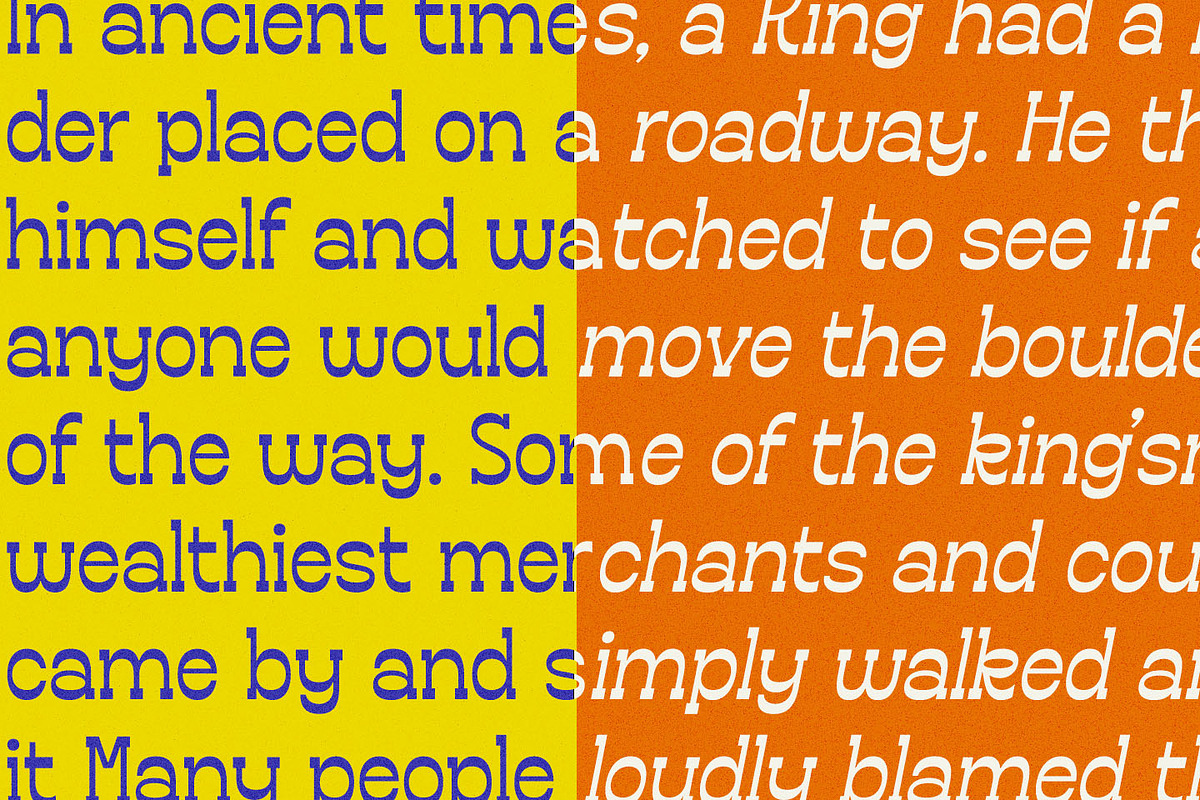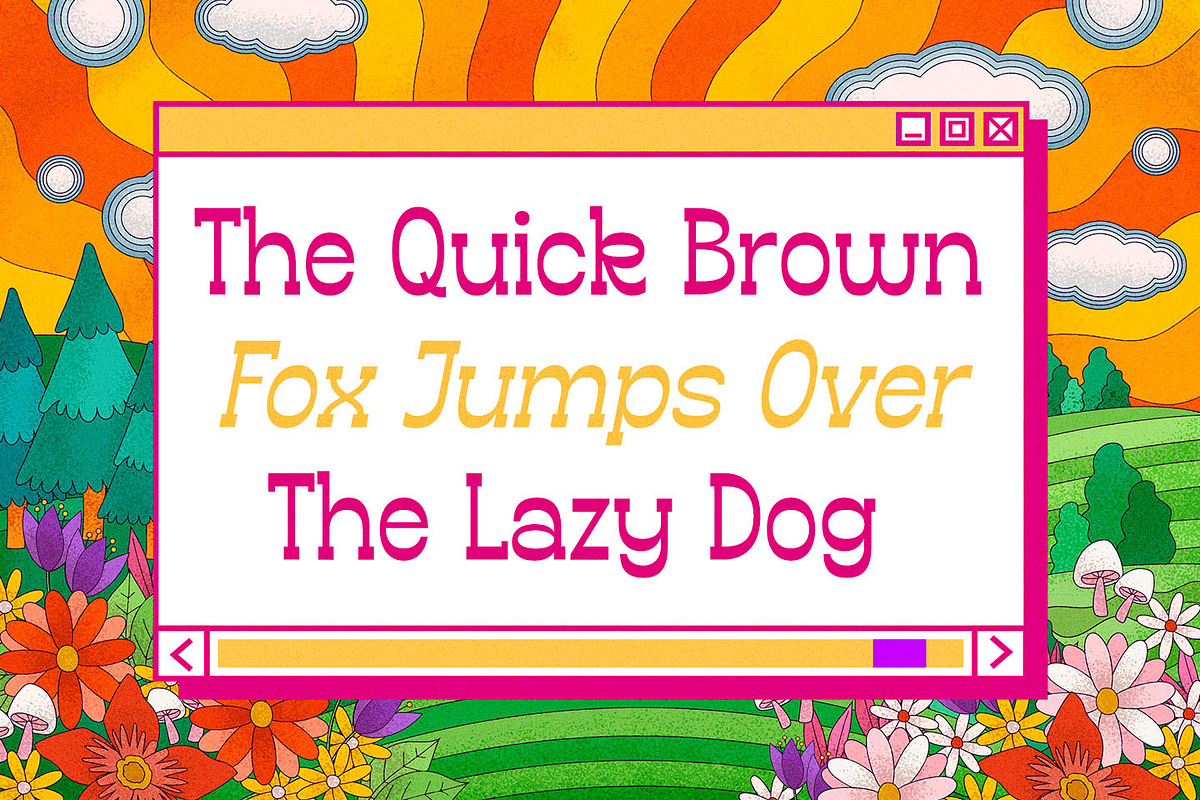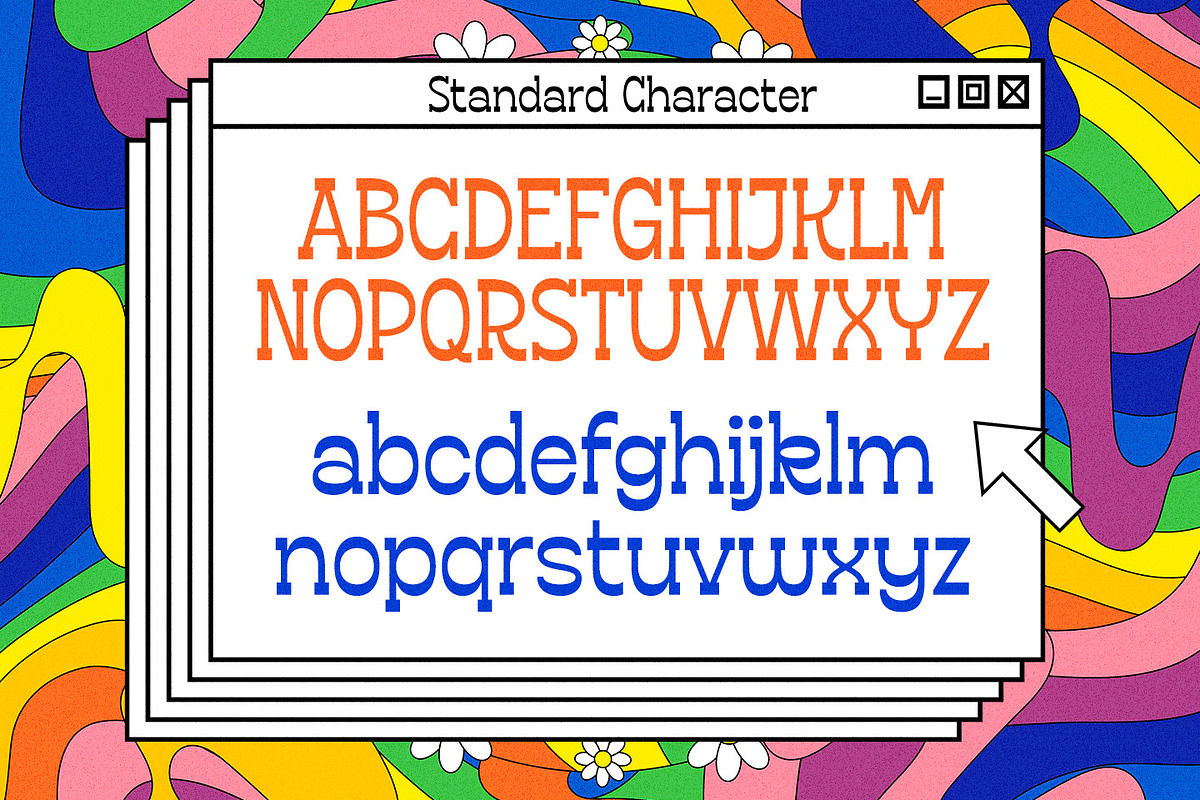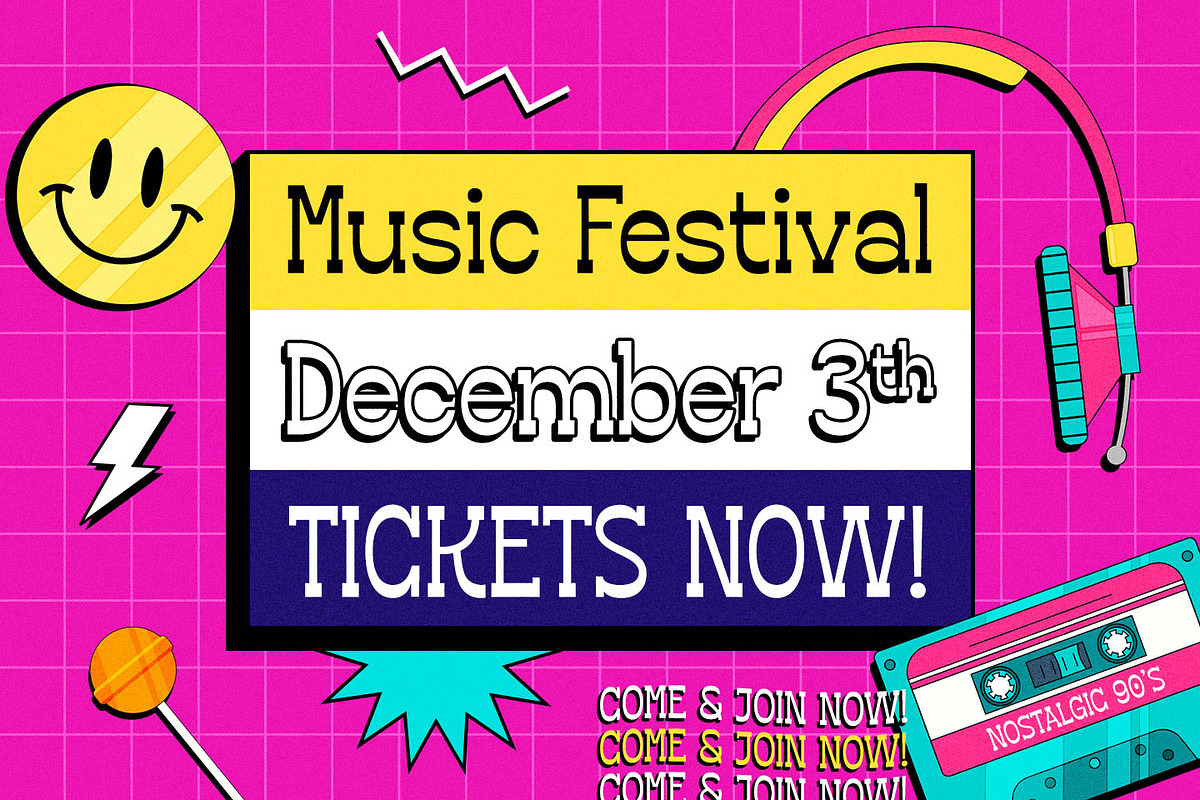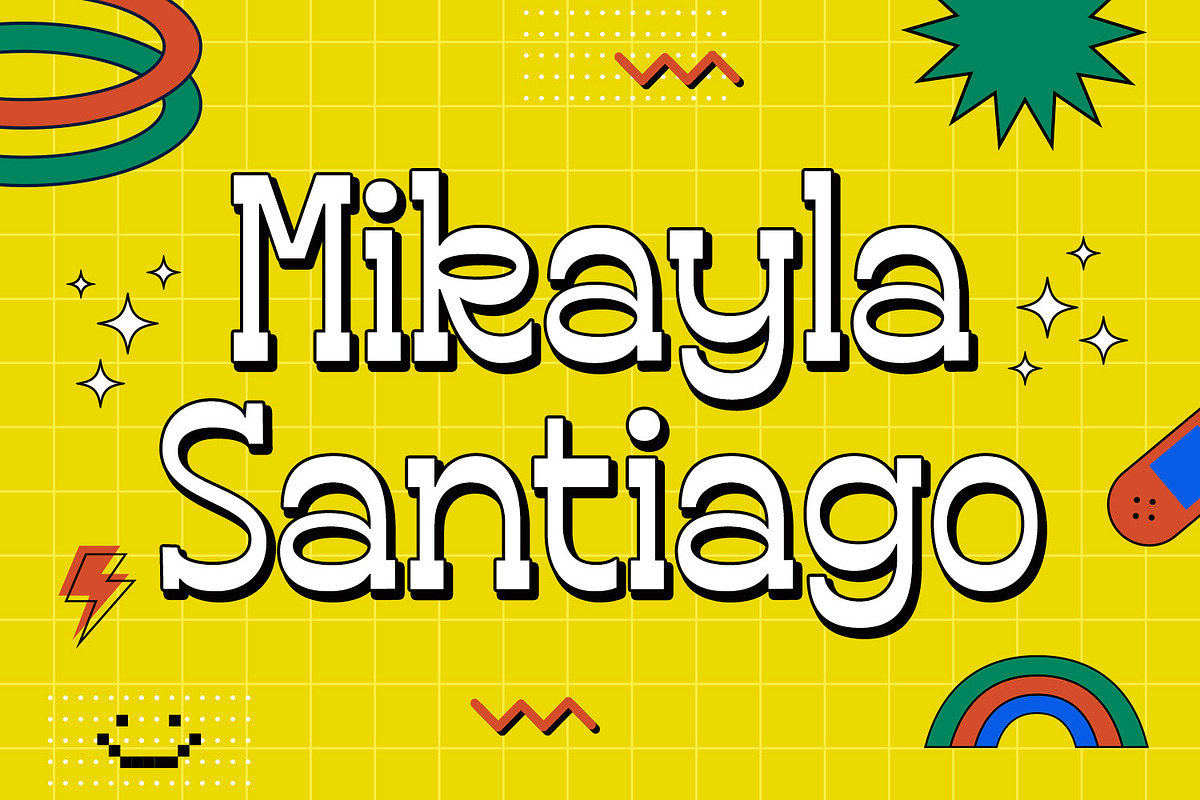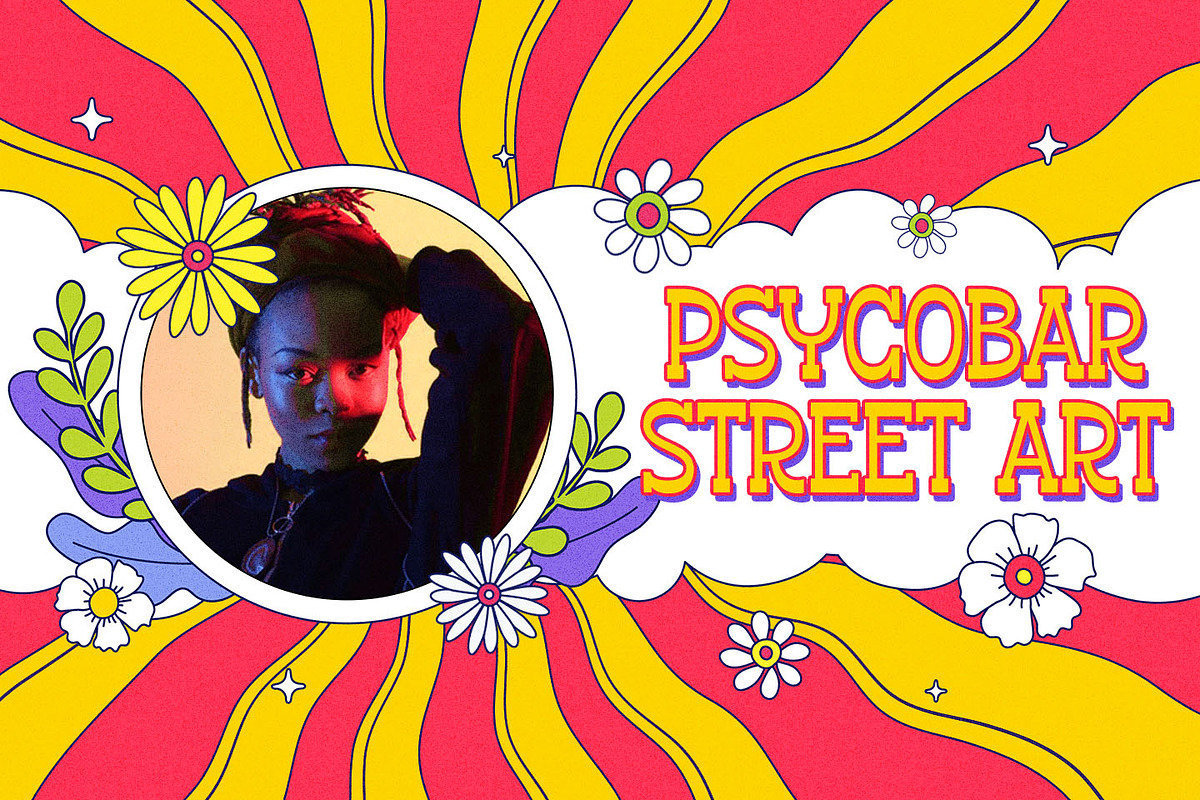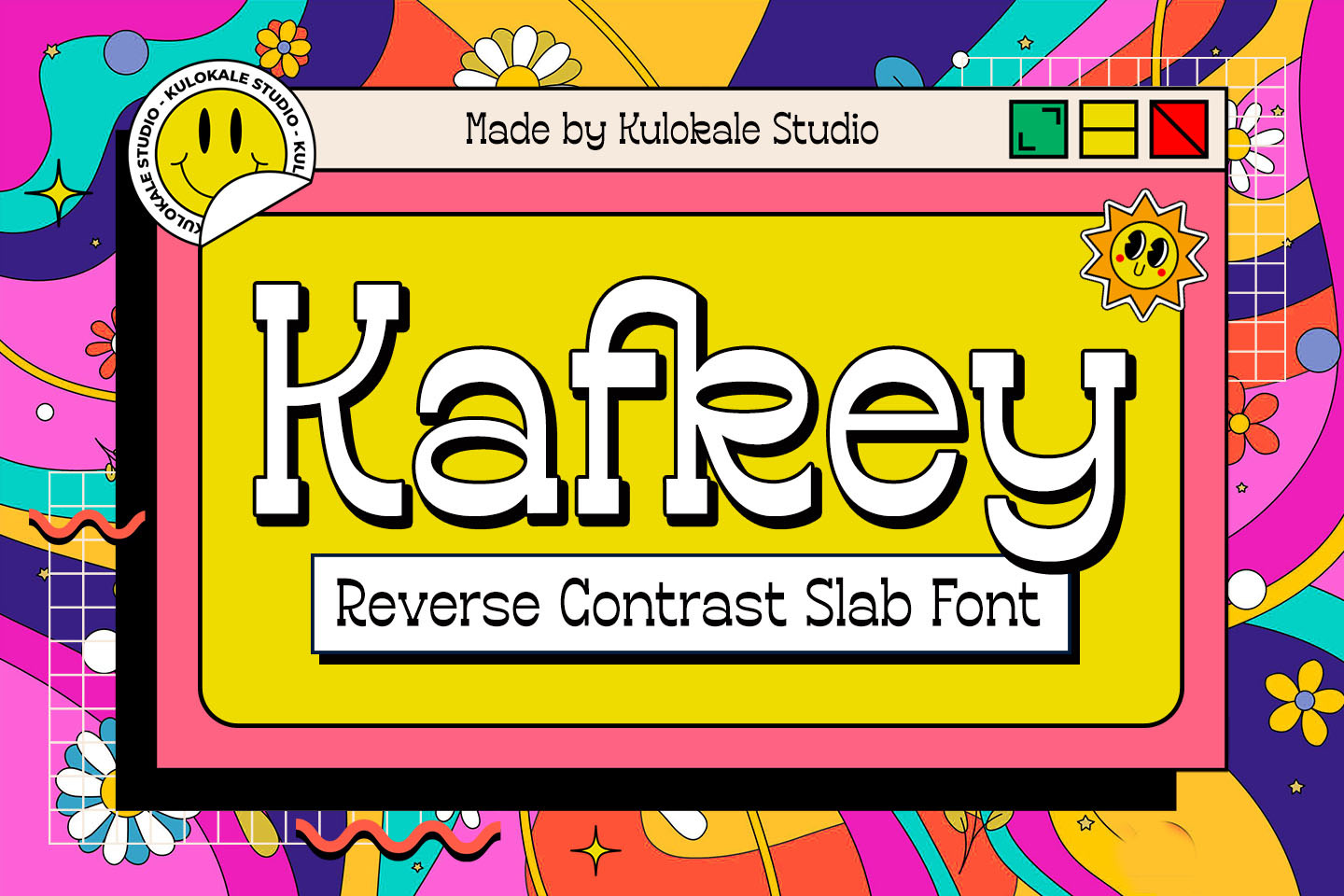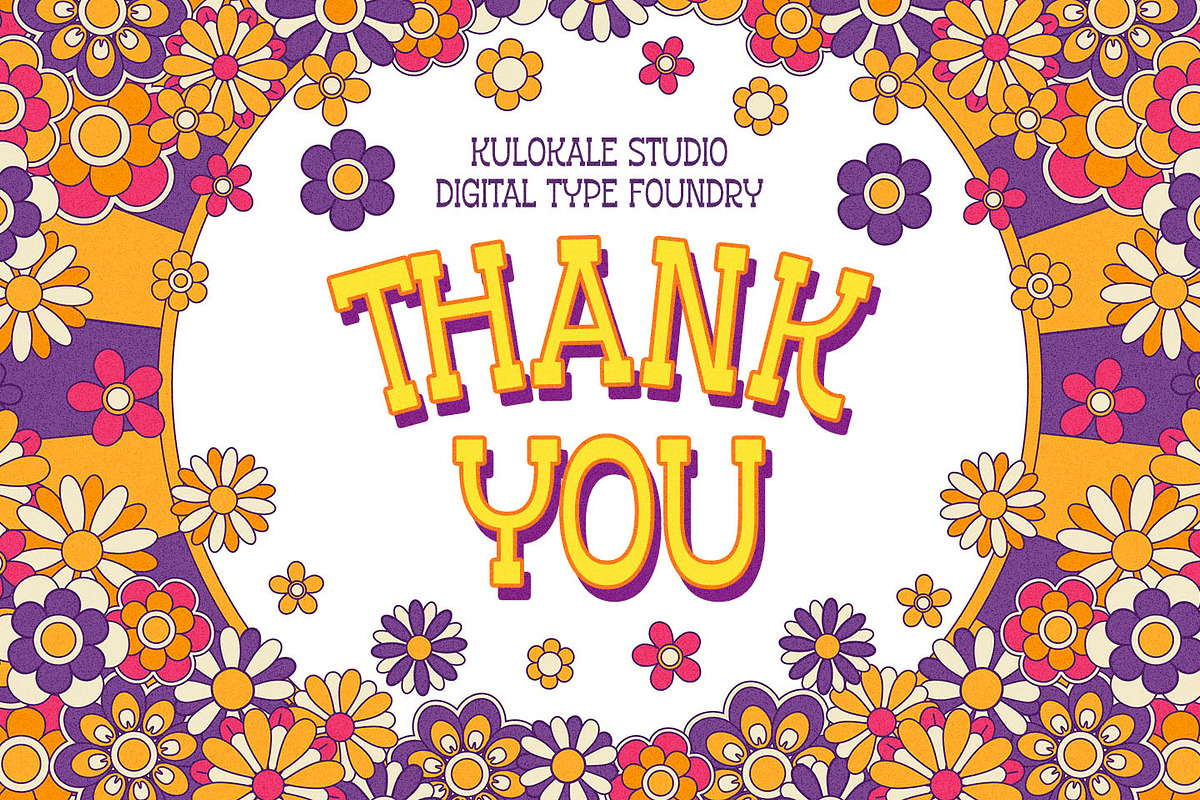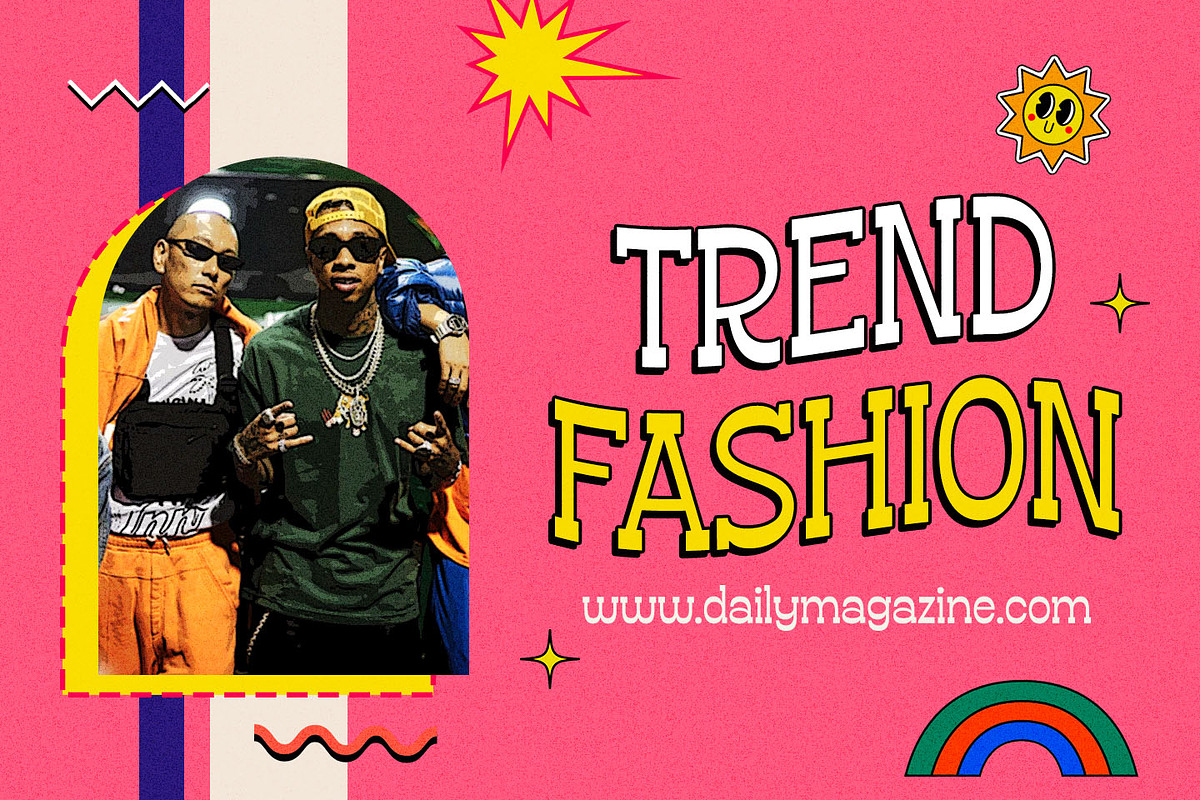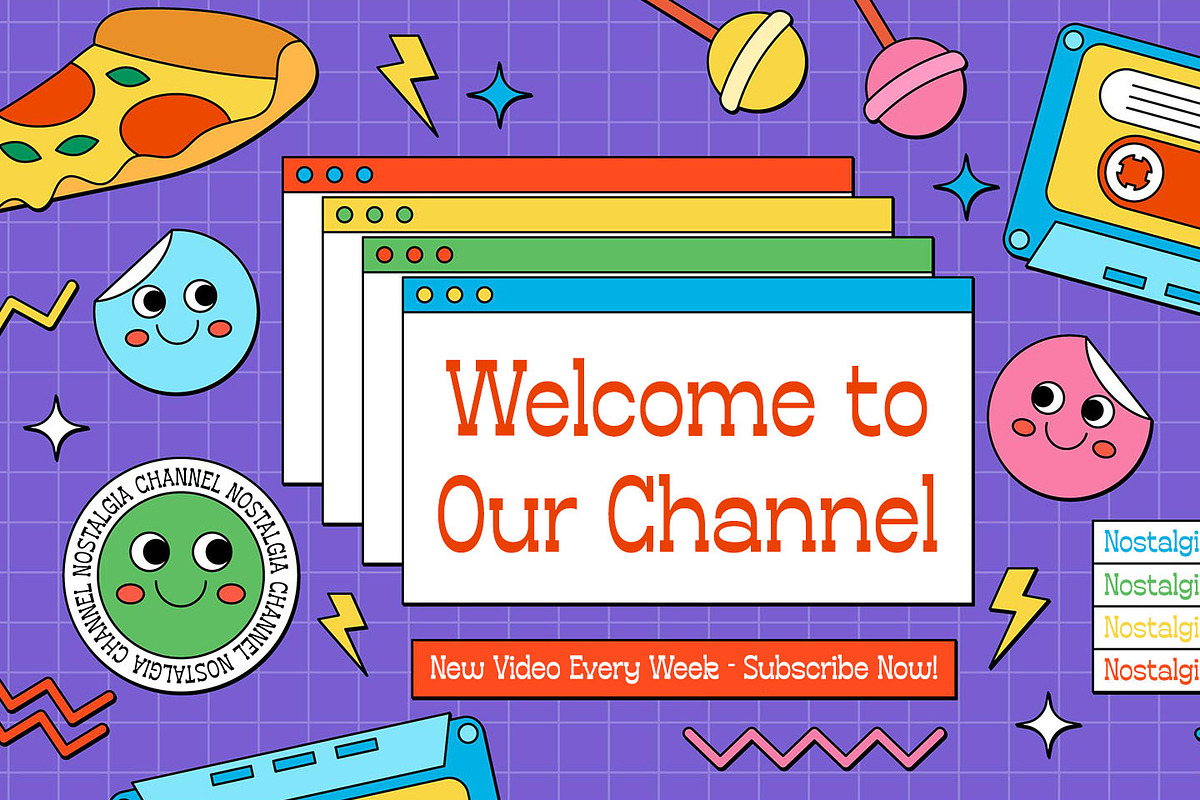
Kafkey Display Slab Font
Kafkey is a display slab serif font. Kafkey is well-suited for advertising, branding, logotypes, packaging, titles, headlines and editorial design. This font comes in 2 styles, Regular and Oblique version.